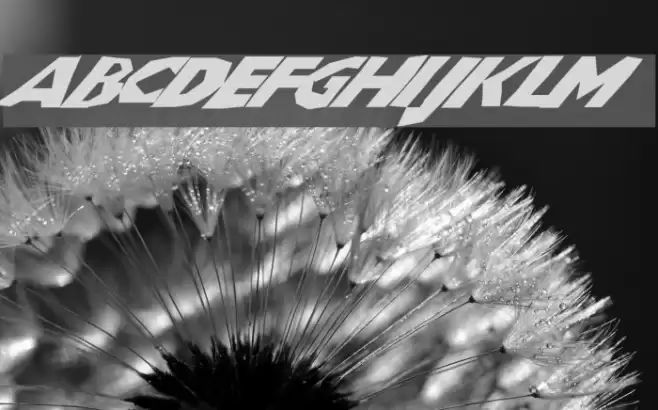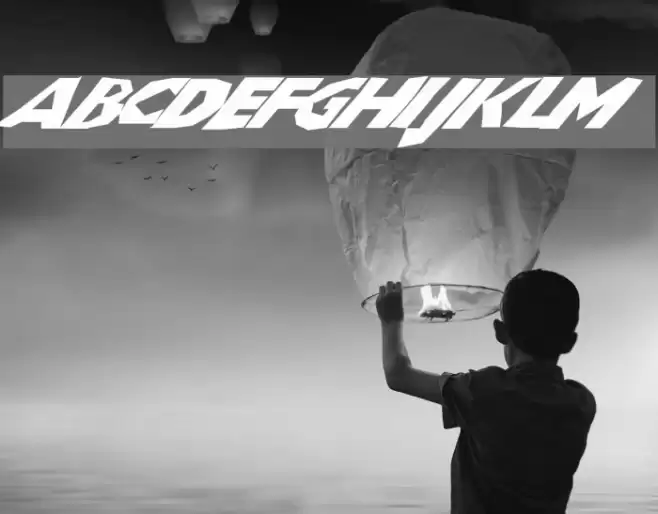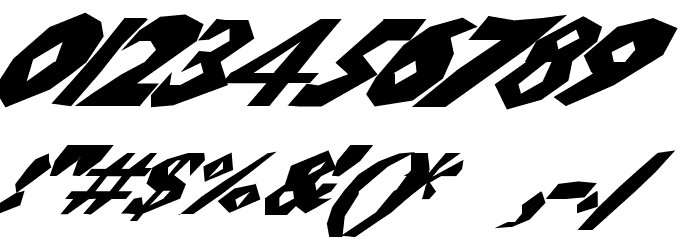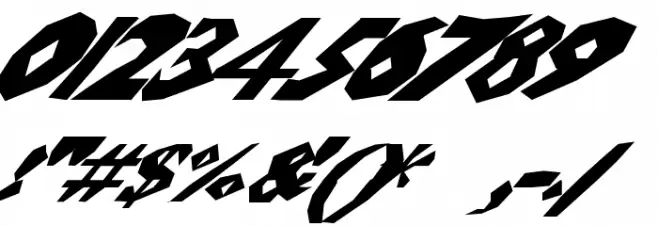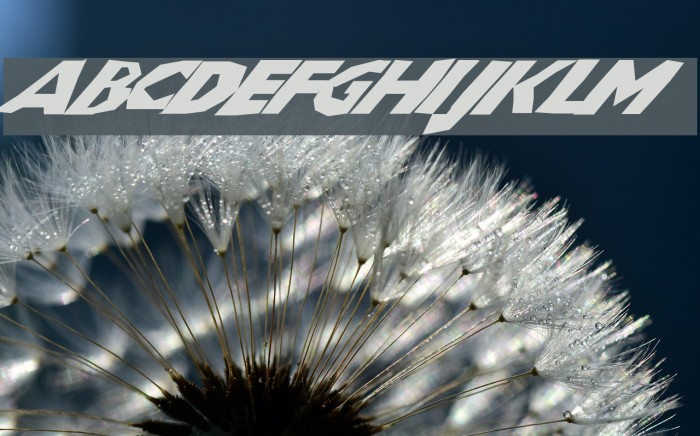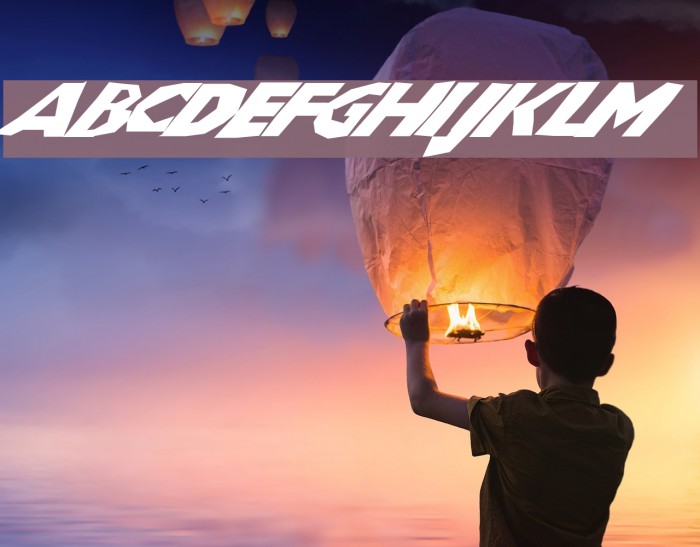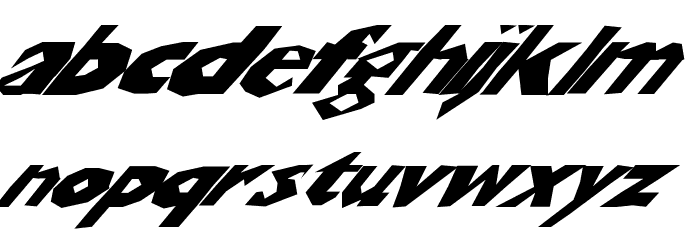
ChunkoBlockoSlantedWild Font
ChunkoBlockoSlantedWild Description
This bold and dynamic font features a slanted, angular design that exudes energy and movement. The characters are heavily stylized with sharp edges and a blocky appearance, creating a sense of urgency and modernity. The uppercase and lowercase letters maintain a consistent slant, enhancing the font's cohesive look. Numbers and special characters follow the same design principles, ensuring uniformity across all text elements. The font's thick strokes and dramatic angles make it highly visible and impactful, ideal for grabbing attention.
A bold, slanted, and angular font with a dynamic, modern style from Uncategorized fonts.
- Proposed Projects: Perfect for sports branding, action movie posters, video game titles, and dynamic advertising campaigns.